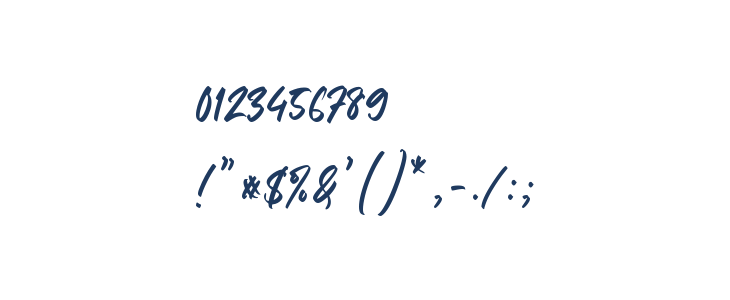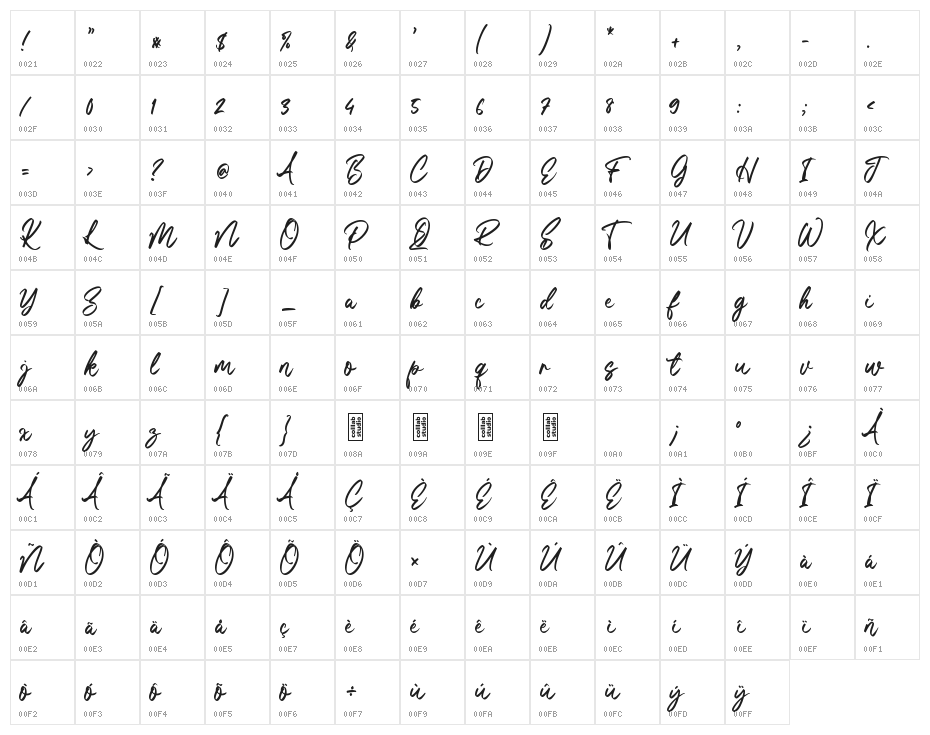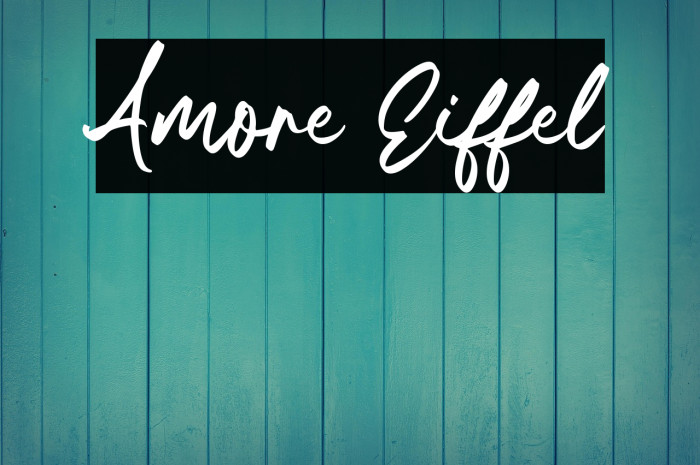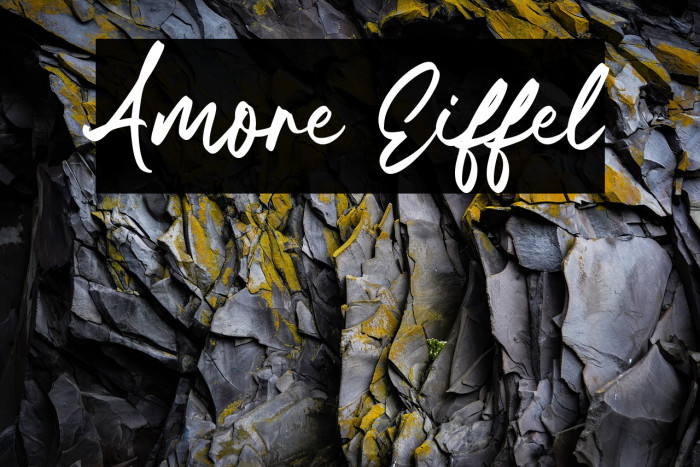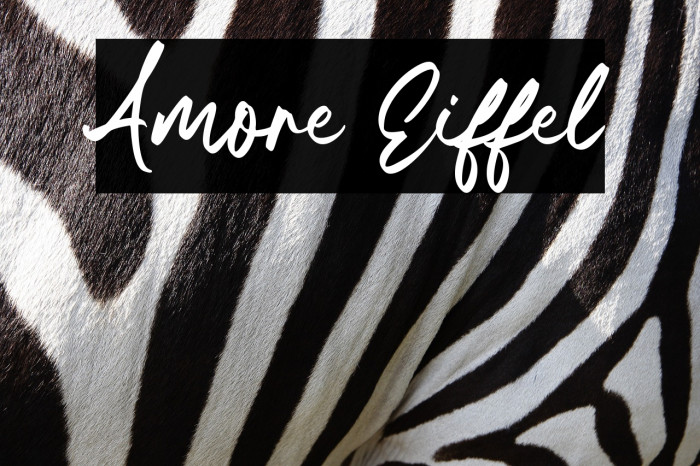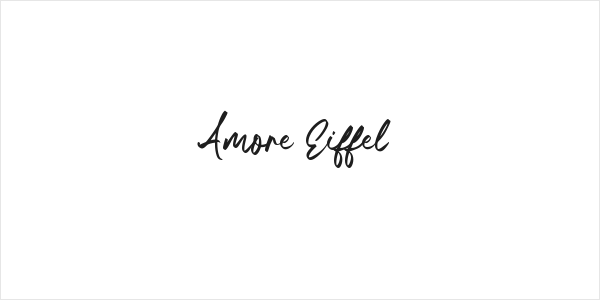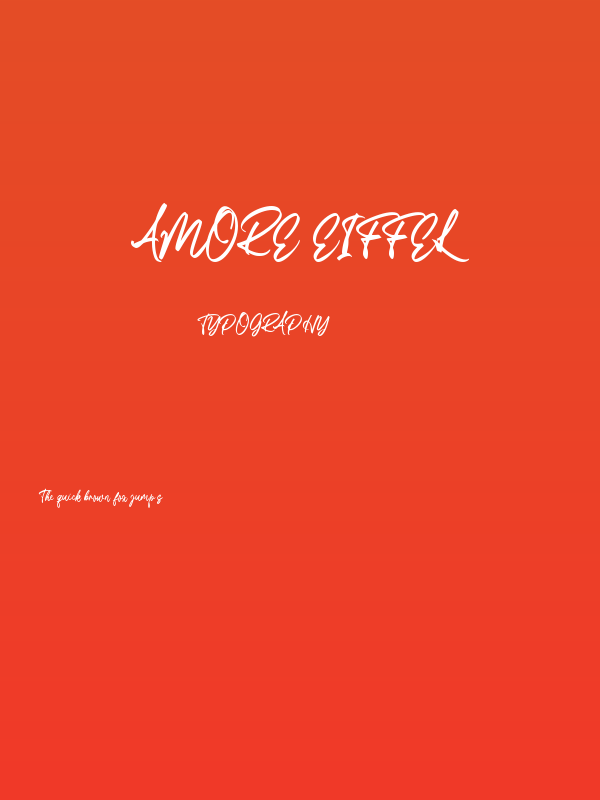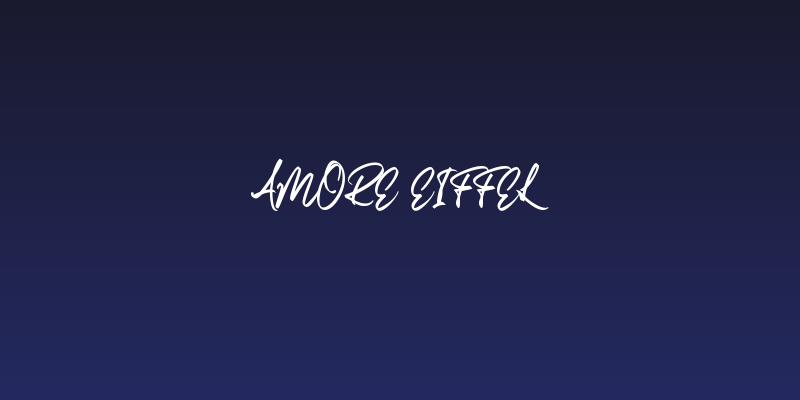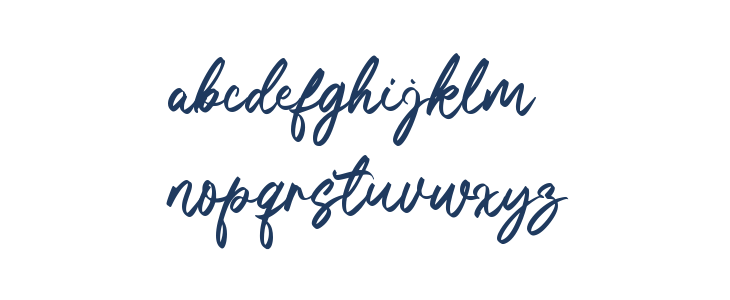
Amore Eiffel Font
Amore Eiffel Description
This font features a dynamic and expressive script style that mimics the fluidity of natural handwriting. The letters are interconnected with smooth, flowing strokes, giving it a lively and energetic appearance. The uppercase characters are bold and prominent, while the lowercase letters maintain a consistent rhythm and elegance. The numbers and special characters are crafted with the same attention to detail, ensuring a cohesive look across all elements. This font is perfect for adding a personal touch to any design, with its artistic flair and sophisticated charm.